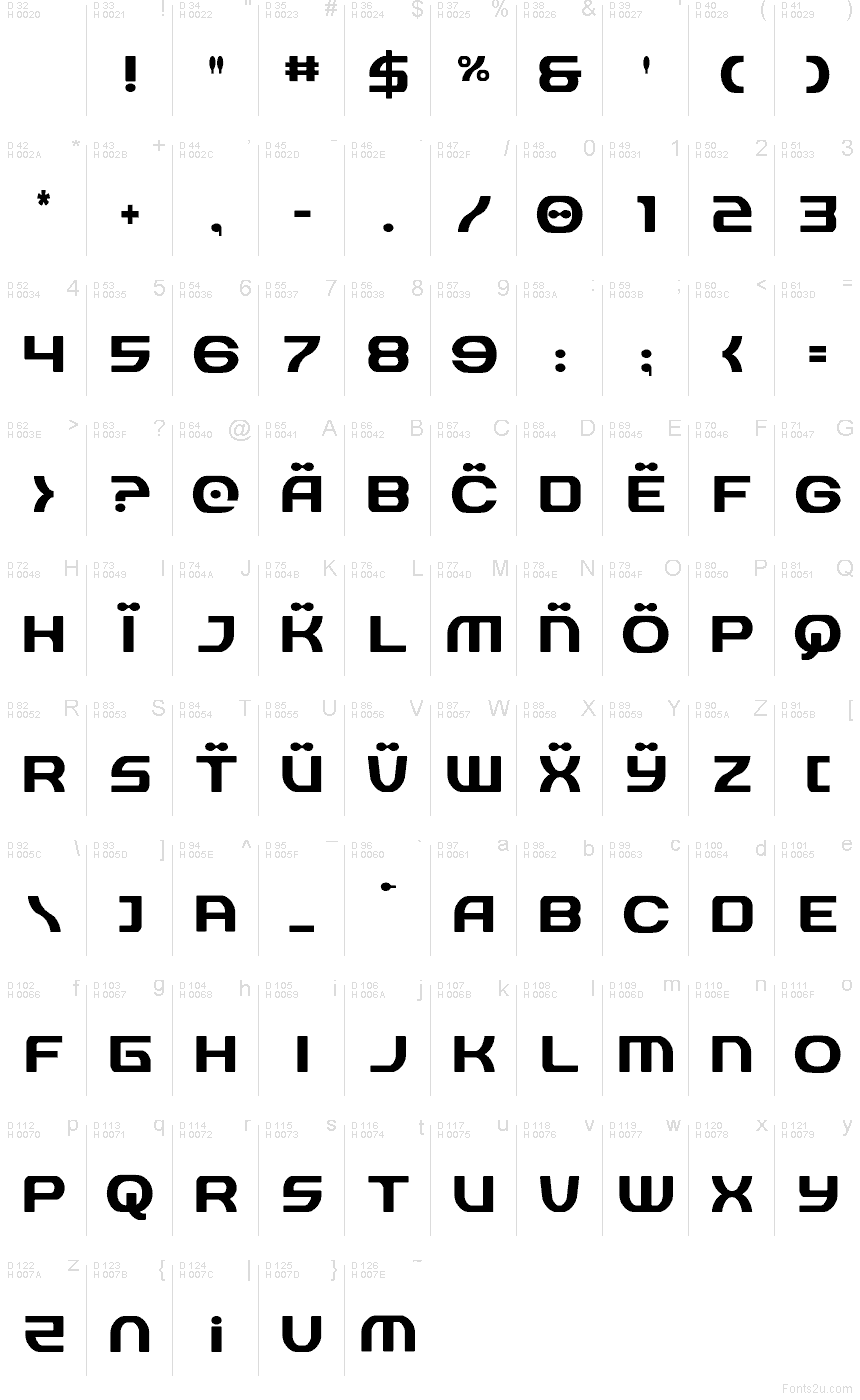
vOiture Narrow from Iconian Fonts is a free rounded techno display font built from broad, smooth strokes. Its letters combine soft outer curves with squared cut-ins, producing a compact machine-made silhouette that feels closer to product design than science fiction lettering. Small geometric joins keep the forms crisp.
Digital graphics give this style a convincing home, especially interface banners, app promotions, and electronic music artwork. The simple modular construction also suits automotive branding and merchandise, where the curved shapes can echo dashboards, badges, or streamlined bodywork. It is strongest in a logo, where its unusual joins turn the lettering into a recognizable mechanical mark.